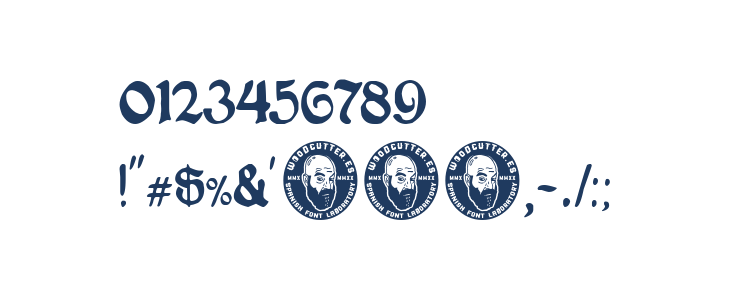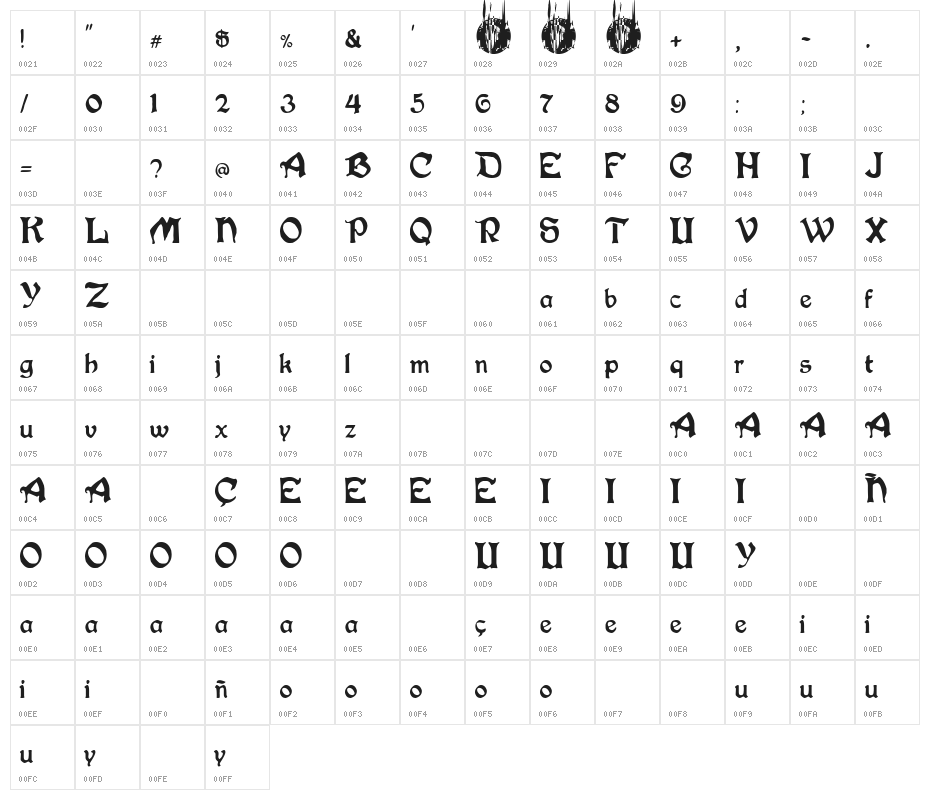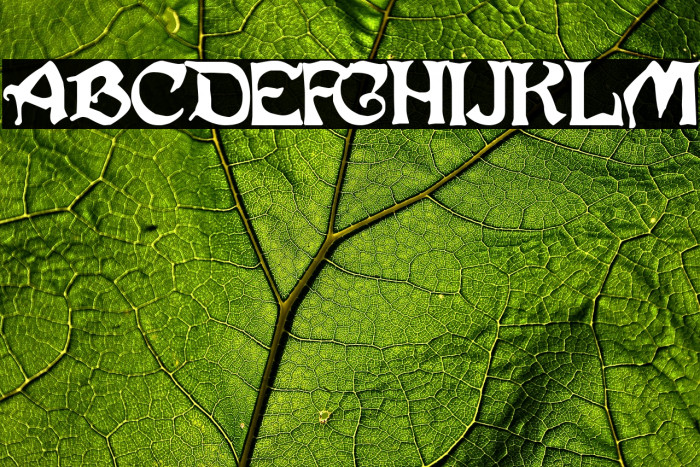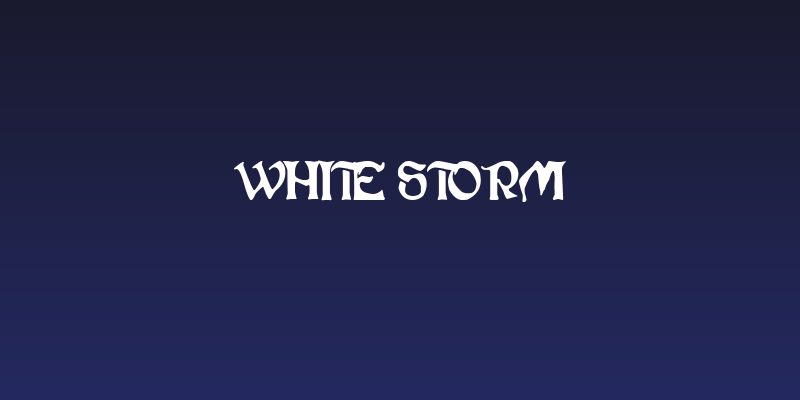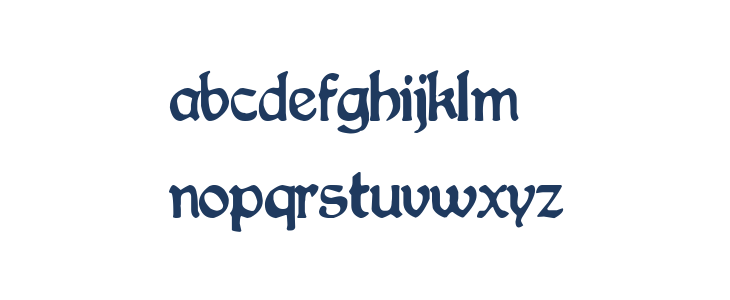
White Storm Font
White Storm Description
This font features a bold and dramatic style with a distinct Gothic influence. The characters are designed with sharp, angular edges and intricate details that give them a medieval appearance. The uppercase letters are particularly striking, with exaggerated serifs and unique flourishes that add to the font's decorative nature. The lowercase letters maintain the same stylistic elements, ensuring consistency throughout the typeface. The numerals are equally bold, with a strong presence that complements the overall design. Special characters are included, maintaining the same ornate style. This font is ideal for projects that require a touch of historical or fantasy-themed aesthetics.
| Proposed Projects | Ideal for fantasy book covers, medieval-themed event posters, or video game graphics. |